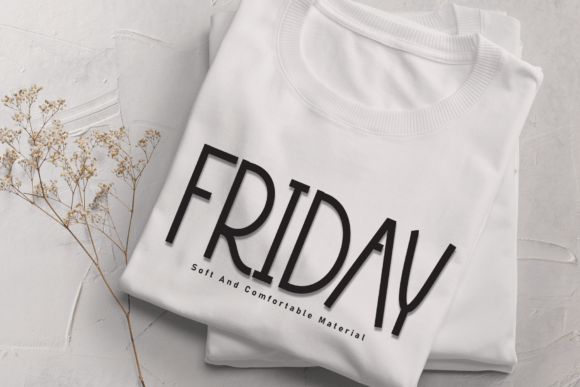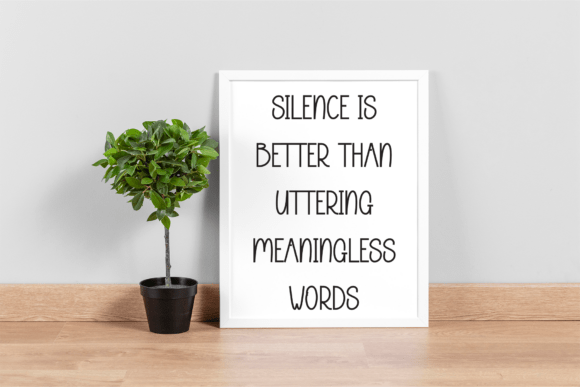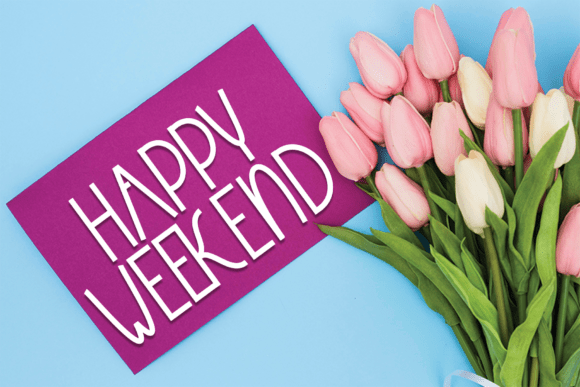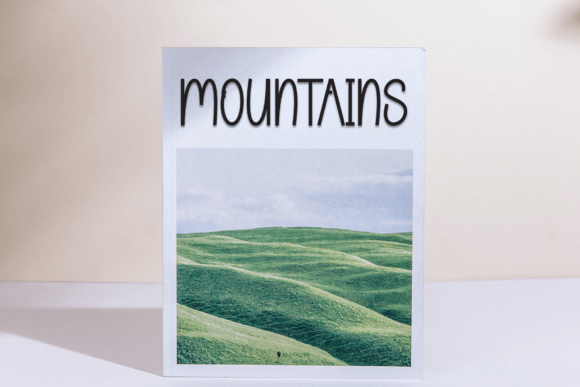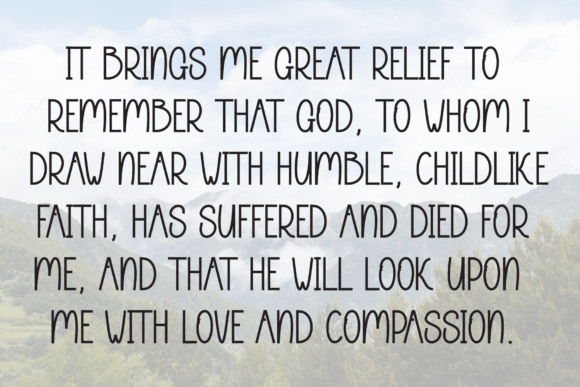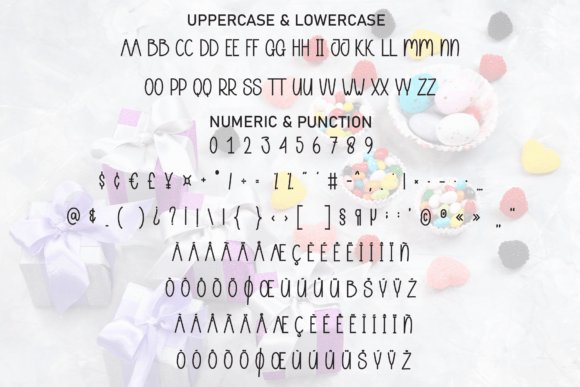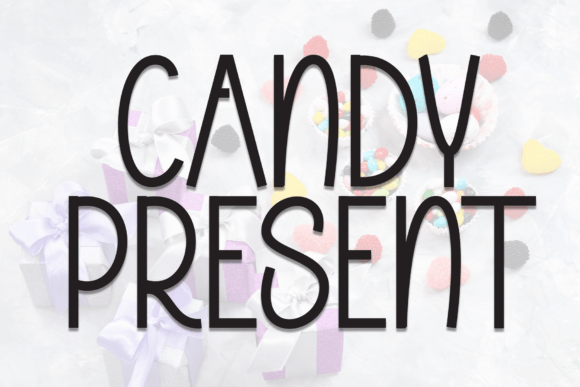
Candy Present Font: A Sweet Addition to Your Design Projects
Are you looking for a font that can add a touch of whimsy and sophistication to your design projects? Look no further than the Candy Present Font, a charming and personable handwritten display font that is sure to delight. With its pure sweetness and delightful essence, this font is perfect for wedding invitations, greeting cards, and any design project that needs a dash of fun and personality.
What is Candy Present Font?
Candy Present Font is a handwritten display font that is designed to evoke a sense of sweetness and charm. Its distinctive touch is perfect for designers and crafters who want to add a personal and whimsical touch to their projects. Whether you’re creating wedding invitations, greeting cards, or social media graphics, this font is sure to make your design stand out.
Key Features of Candy Present Font
- Handwritten display font: Candy Present Font is a handwritten display font that is designed to look like it was written with a pen or pencil. Its personal and whimsical touch makes it perfect for designs that need a human touch.
- Sweet and sophisticated: This font has a delightful essence that is both fun and sophisticated. It’s perfect for designs that need a touch of elegance and whimsy.
- Distinctive touch: Candy Present Font has a distinctive touch that sets it apart from other fonts. Its unique letterforms and swashes make it perfect for designs that need a personal touch.
- Perfect for wedding invitations and greeting cards: This font is perfect for wedding invitations, greeting cards, and any design project that needs a touch of whimsy and romance.
How to Use Candy Present Font
Candy Present Font is easy to use and can be incorporated into a variety of design projects. Here are a few ways you can use this font:
- Wedding invitations: Use Candy Present Font to create beautiful and unique wedding invitations that will set the tone for the big day.
- Greeting cards: This font is perfect for greeting cards, whether you’re creating birthday cards, holiday cards, or get-well cards.
- Social media graphics: Use Candy Present Font to create eye-catching social media graphics that will help your brand stand out.
- Design projects: This font is perfect for any design project that needs a touch of whimsy and personality, such as brochures, flyers, and posters.
Tips for Using Candy Present Font
Here are a few tips for using Candy Present Font:
- Use it sparingly: While Candy Present Font is a beautiful font, it can be overwhelming if used too much. Use it sparingly to add a touch of whimsy to your design.
- Pair it with other fonts: Candy Present Font pairs well with other fonts, such as serif and sans-serif fonts. Experiment with different font combinations to find the perfect look for your design.
- Experiment with swashes: Candy Present Font comes with a range of swashes that can add a touch of elegance and sophistication to your design. Experiment with different swashes to find the perfect look for your project.
Candy Present Font is a charming and personable handwritten display font that is sure to delight. With its pure sweetness and delightful essence, this font is perfect for wedding invitations, greeting cards, and any design project that needs a dash of fun and personality. Whether you’re a designer or crafter, Candy Present Font is a great addition to your font collection.
- Characters: Alphabet, numbers, and punctuation